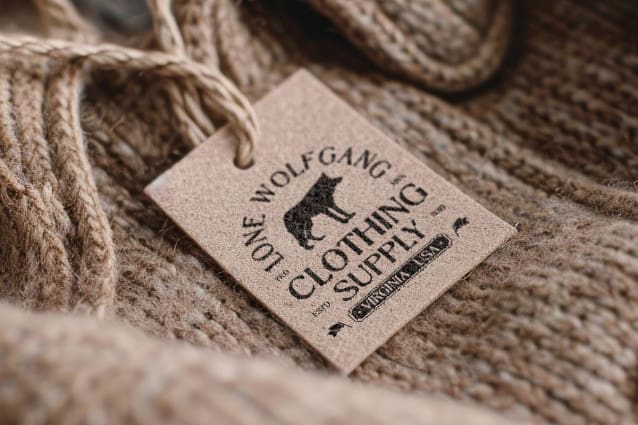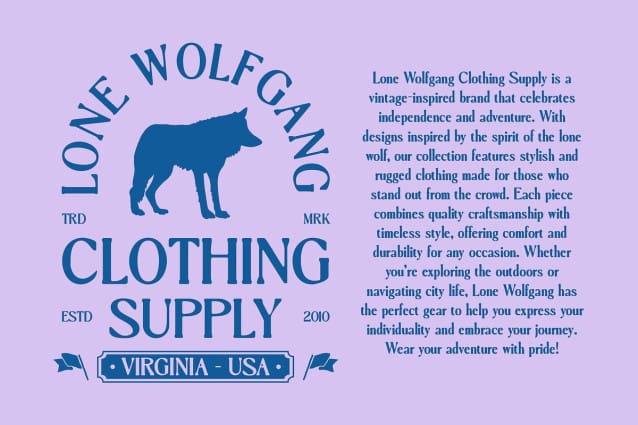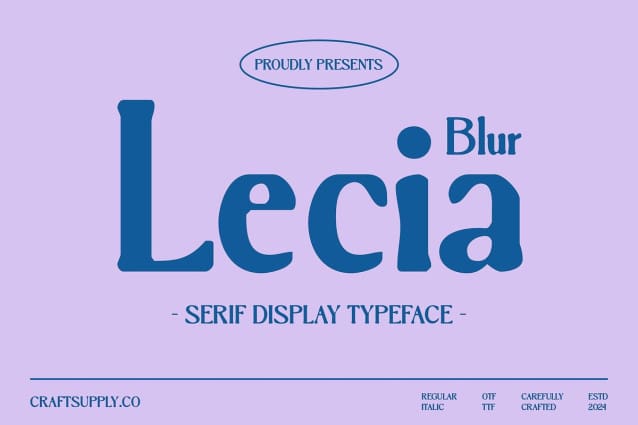
Lecia Blur Font is a modern serif font that showcases an elegant design with clean, contemporary shapes. Its meticulously crafted letterforms balance classic sophistication with a fresh, modern aesthetic, making it an excellent choice for a variety of design applications. Each character reflects a commitment to elegance, ensuring that your message is communicated with style.
Wrapped in a Blur Effect for Visual Depth The distinctive blur effect enveloping Lecia Blur adds a smooth and sophisticated ambiance to the font. This subtle touch creates a sense of visual depth, making each letter appear more dynamic and inviting. The blur not only enhances the overall design but also contributes to a sense of movement, ensuring that the text captures attention while remaining clear and readable.
Versatile for Branding and Formal Applications Ideal for a wide range of applications, Lecia Blur excels in branding, formal invitations, and marketing materials. Whether itâs a chic business card, an elegant wedding invitation, or a captivating promotional piece, this font delivers a stunning yet professional impression that enhances the visual appeal of any design. Its versatility ensures it can adapt to both contemporary and traditional contexts, making it a valuable addition to any designerâs toolkit.